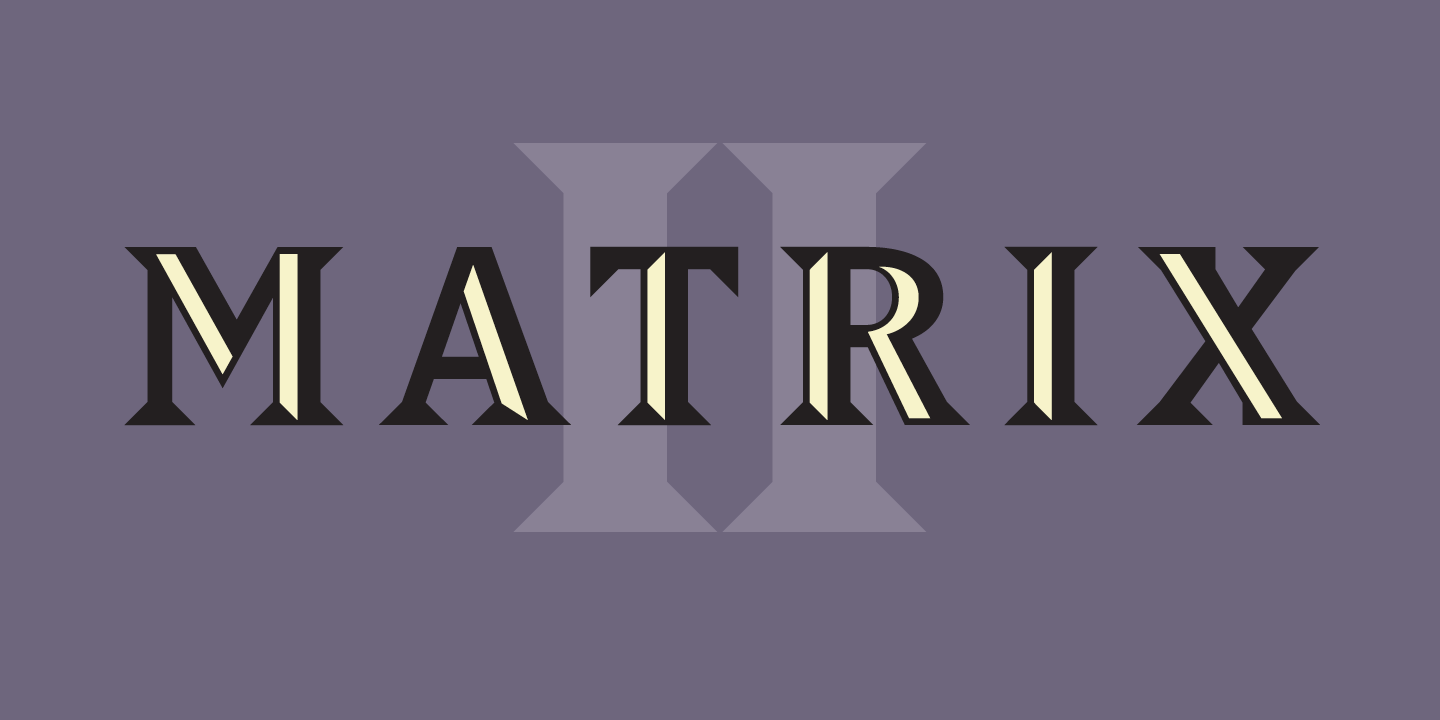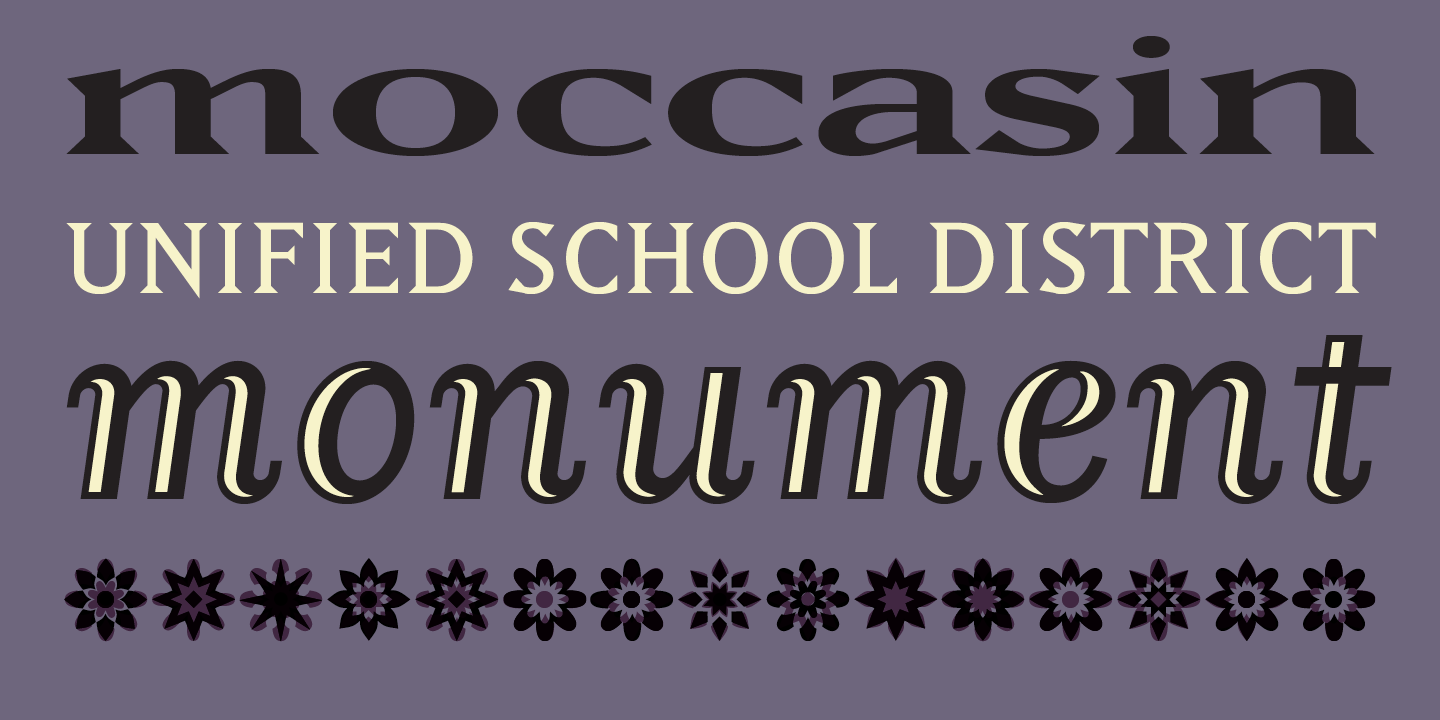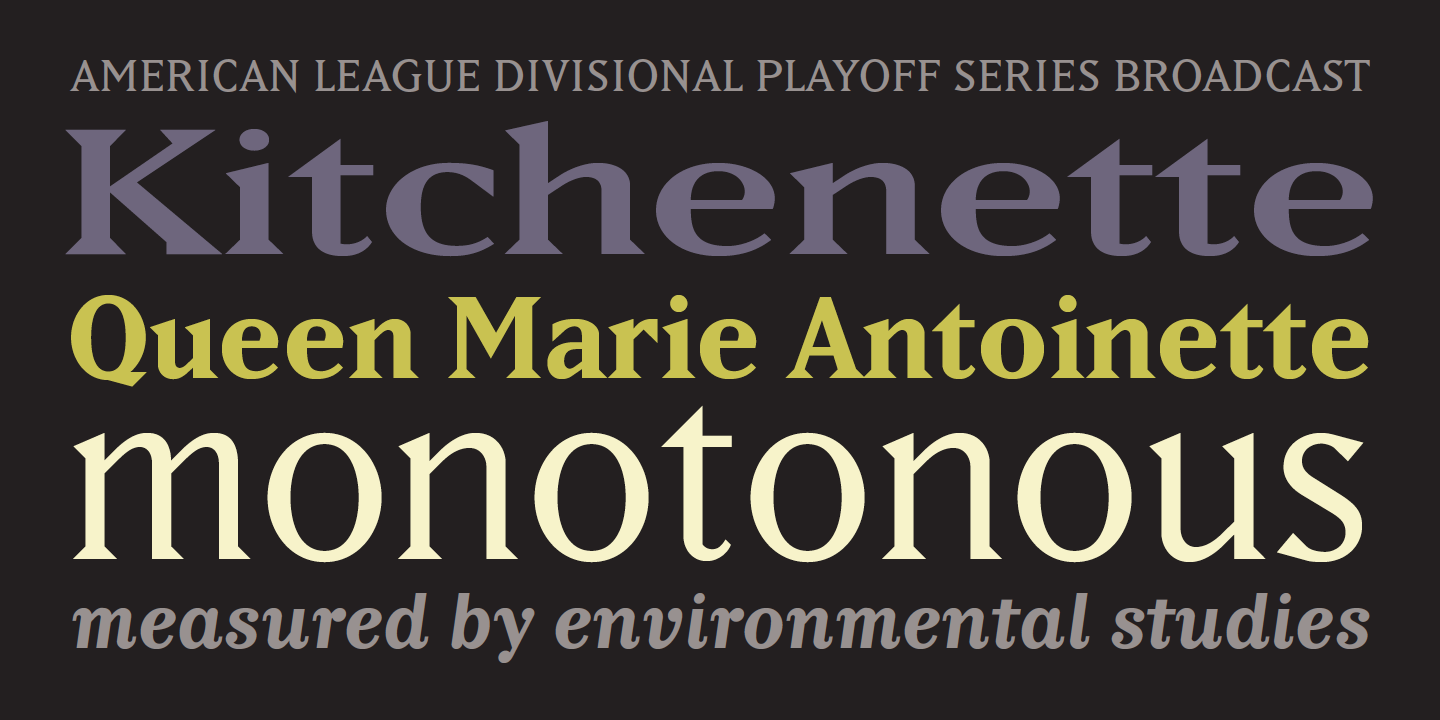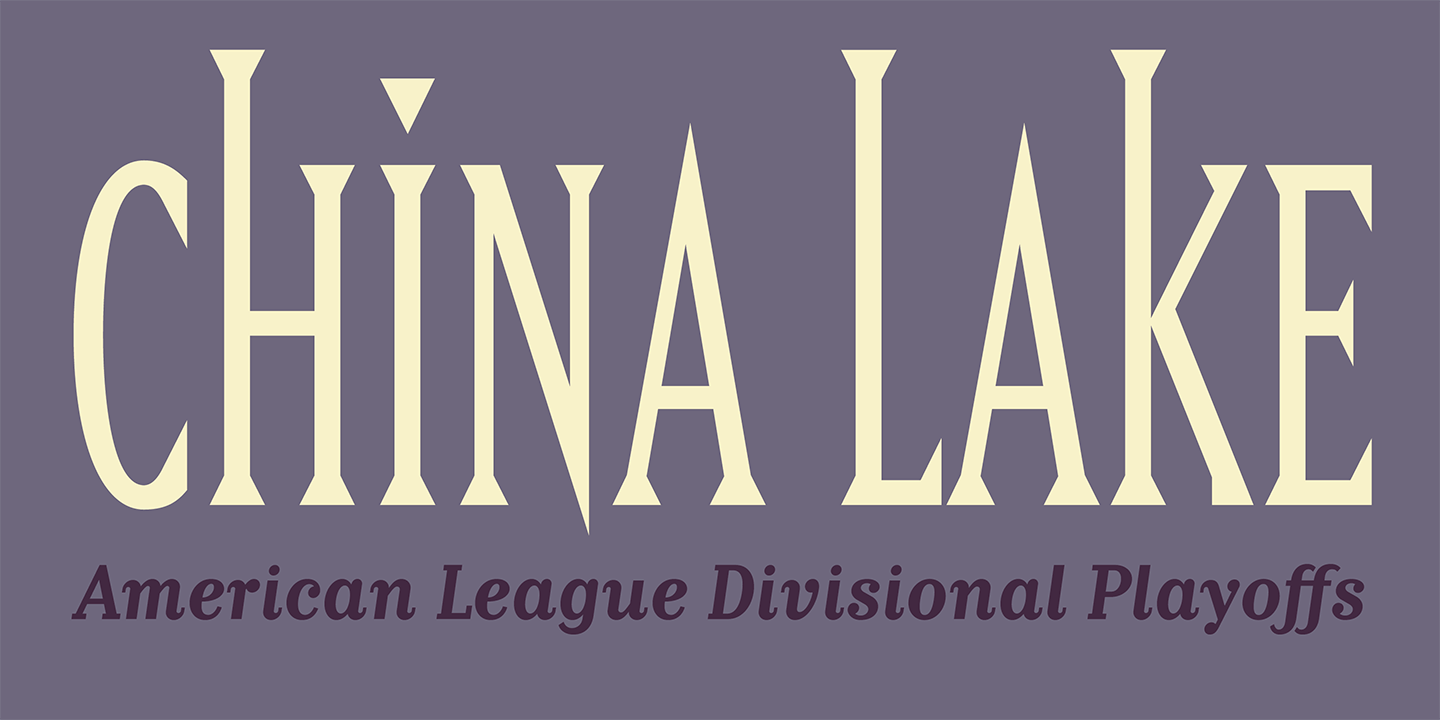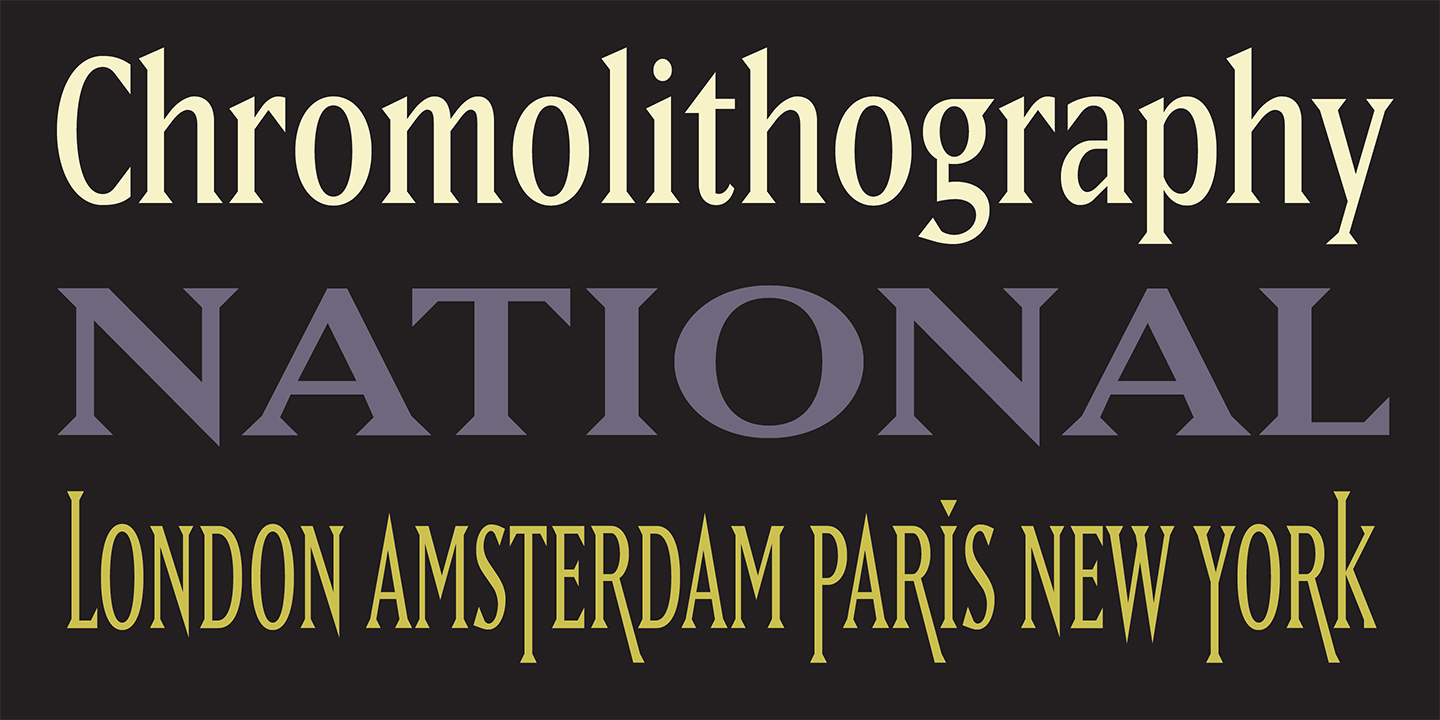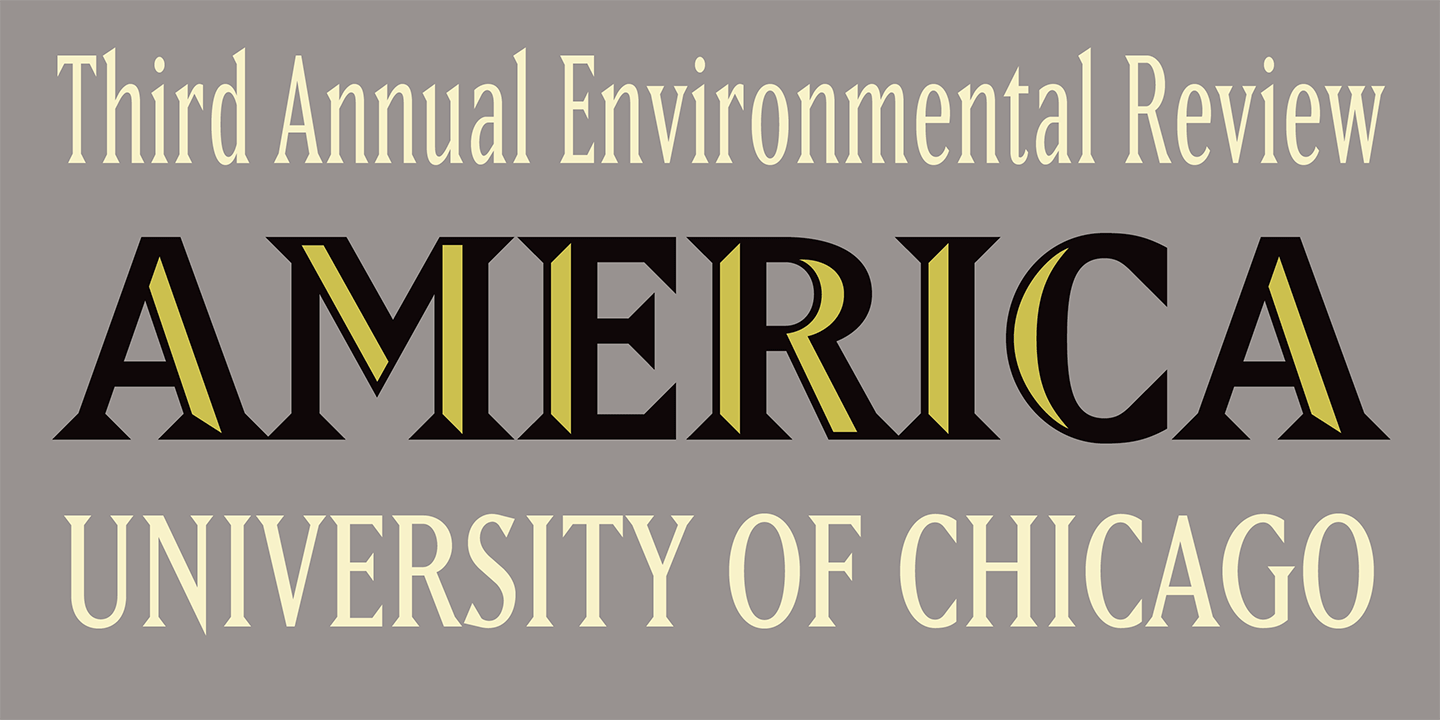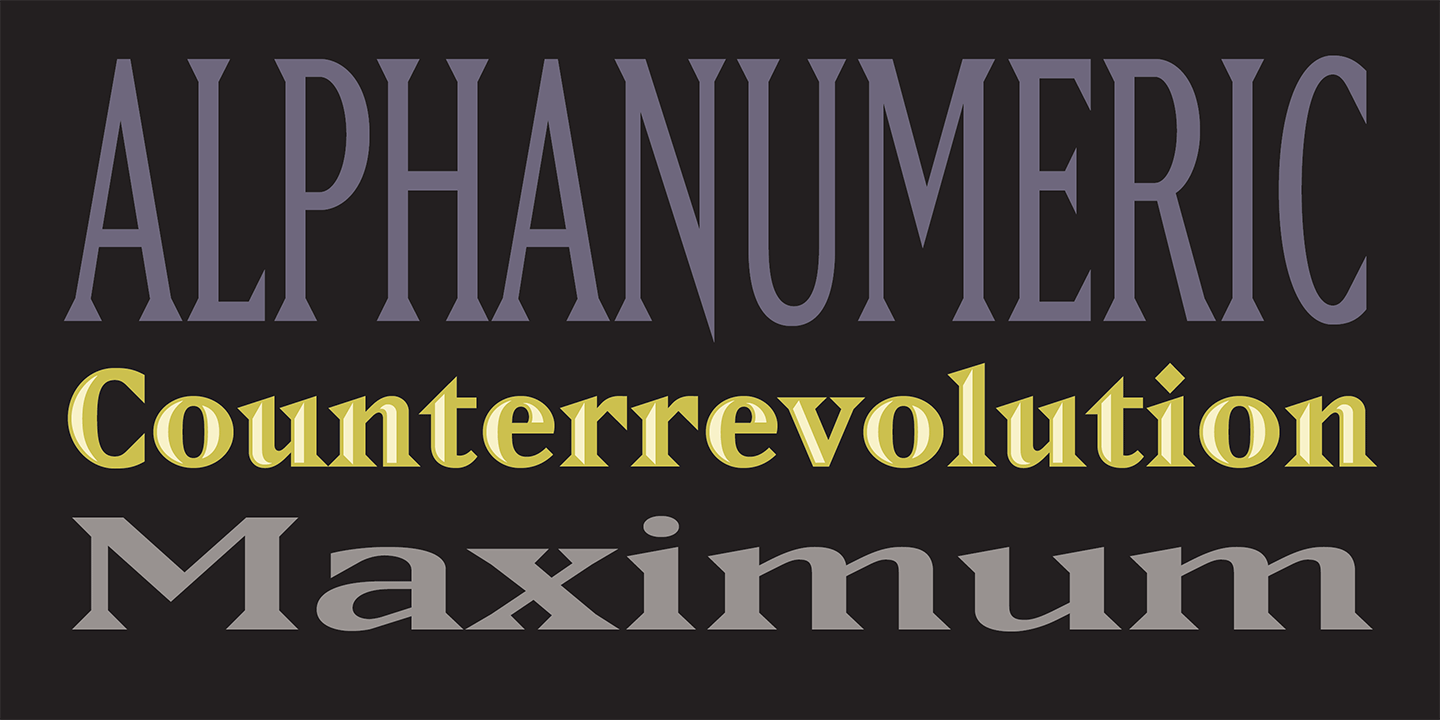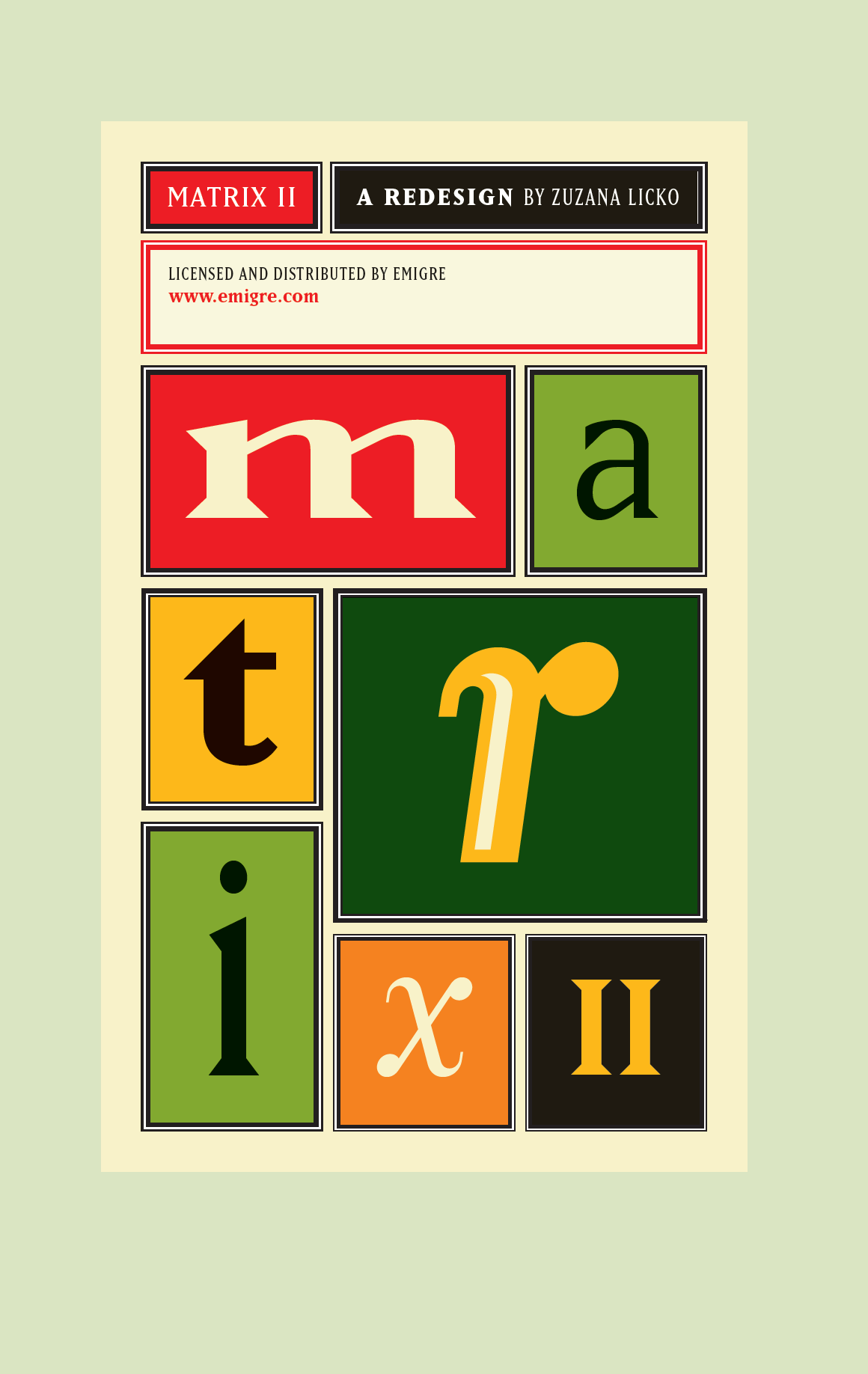
Matrix II is a complete reworking of the original Matrix type family which was designed by Zuzana Licko in 1986.
The redesign, which started in January 2007, was initiated by the need to create an OpenType version of Matrix. With the hood open, so to speak, Licko used the opportunity to make subtle changes and to fine tune many of the existing characters which were designed some 20 years ago. The contrast between thick and thin strokes was decreased in some instances, and overshoots were corrected. The width of various characters was adjusted and regularized. The cross stroke on the f was simplified on most weights. The design of the lower case g was revisited and an alternate single story version was designed and added to the OpenType version.Seven new fonts were also added to the family: a Semi Narrow, Semi Wide, Semi Tall, Inline Italic, and 3 weights of Italic—a less flamboyant version of Matrix Script. To clearly set this version apart from the original Matrix, and to avoid conflict with previous versions, its name was changed to Matrix II.